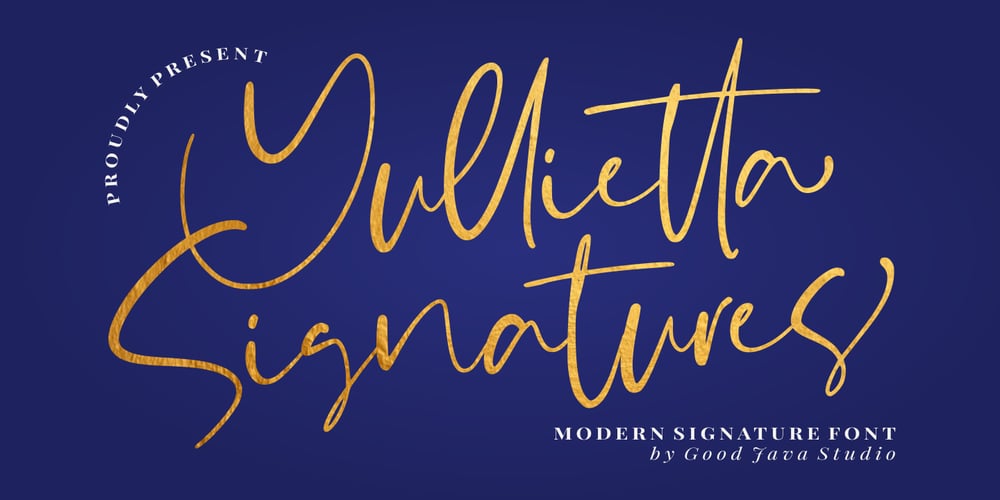
Yullietta Font Family was designed by Good Java and published by Good Java Studio. Yullietta contains 1 styles and family package options. Yullietta is a modern signature font. It is perfect for logos, invitations, stationery, wedding designs, social media posts, advertisements, product packaging, product designs, labels, photography, watermarks, special events and more. This font also includes ligatures and multi-lingual support.